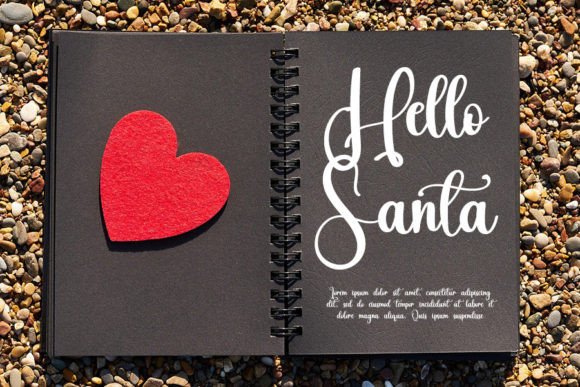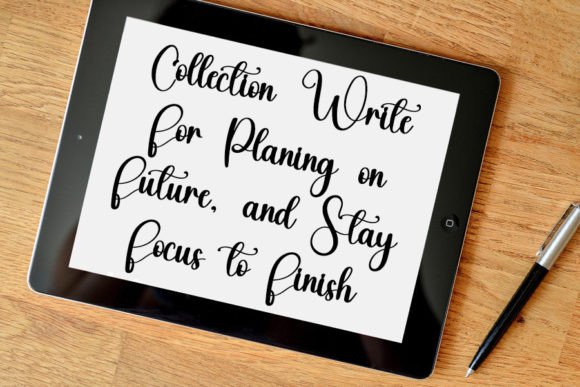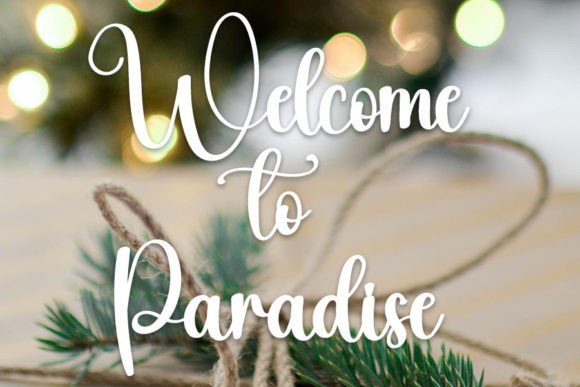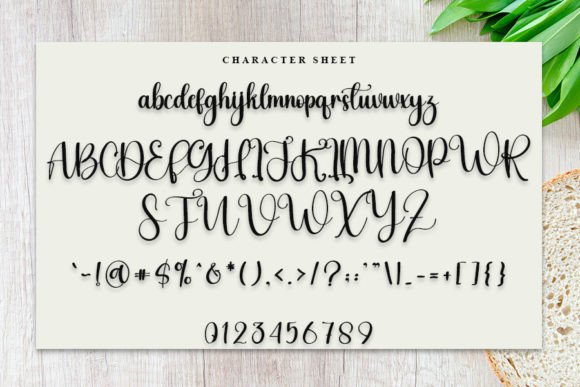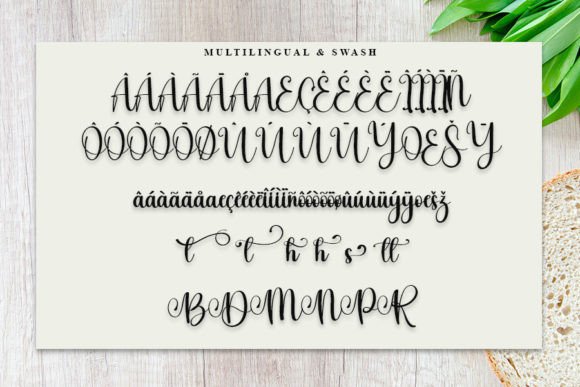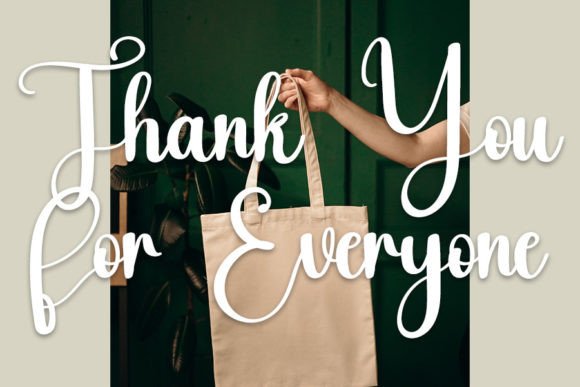
Boho Christmas Font
About Boho Christmas Font
Boho Christmas is a romantic and sweet calligraphy typeface that adds a delightful touch to your designs. With characters that dance along the baseline, this font carries a casual yet elegant vibe, making it versatile for a variety of design needs. Whether you’re working on holiday-themed projects or other creative endeavors, Boho Christmas brings a charming and festive atmosphere to your typography.
The romantic and sweet nature of Boho Christmas makes it a great choice for holiday-themed designs, especially those related to Christmas and festive occasions. The calligraphic style adds a touch of elegance, making it suitable for greeting cards, invitations, and other holiday-inspired projects.
The characters dancing along the baseline contribute to the playful and dynamic quality of Boho Christmas. This distinctive feature adds movement and personality to your text, making it visually appealing and engaging.
Boho Christmas is well-suited for various kinds of products, adapting seamlessly to the specific requirements of each design need. Whether you’re creating holiday cards, product labels, or other festive materials, the font enhances the overall aesthetic with its romantic and sweet calligraphic style.
In summary, Boho Christmas is more than just a font; it’s a design asset that brings a romantic and sweet charm to your holiday and festive projects. Whether you’re writing holiday greetings or creating seasonal designs, Boho Christmas adds a touch of elegance and playfulness, making your typography stand out with festive flair.